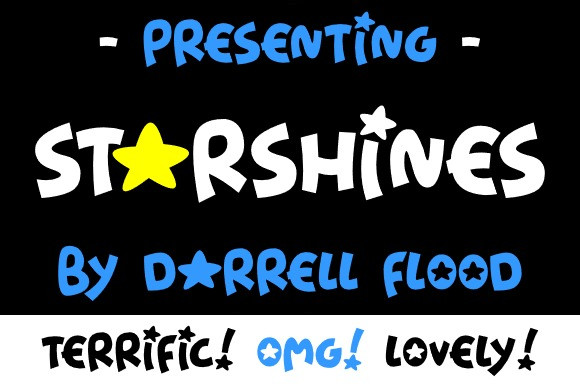
Starshines Font
Starshines Font, A carefree font in an ultra-loose, super expressive, starry style! Perfect for friendly adventures, school settings and general fun filled use! Add some sparkly star power to your creations!